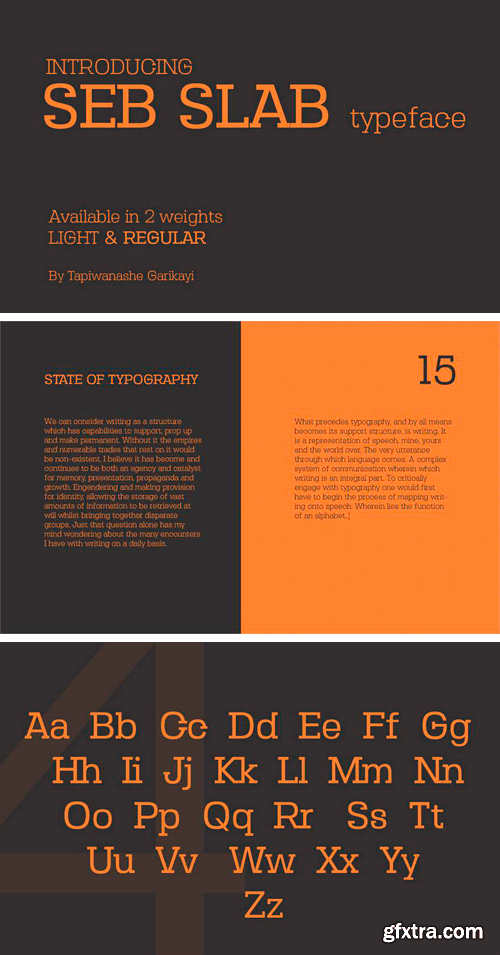
Seb Slab Font
Seb Slab is a slab serif typeface. It comew with two weights – Light and Regular, includes uppercase and lowercase letters, numerals and symbols. It’s a great basic slab serif for headlines and text blocks, also it can be used for logos, branding, prints and other creative designs.